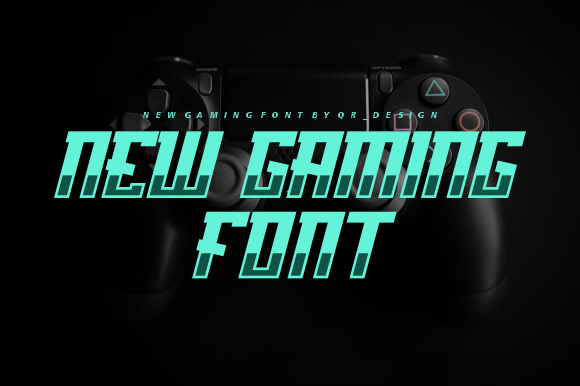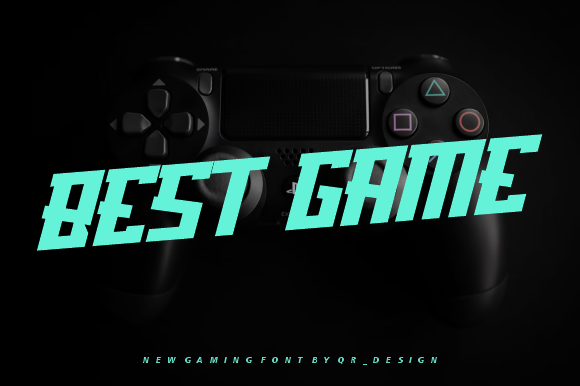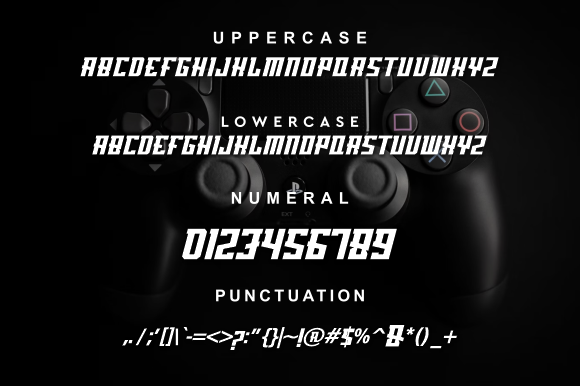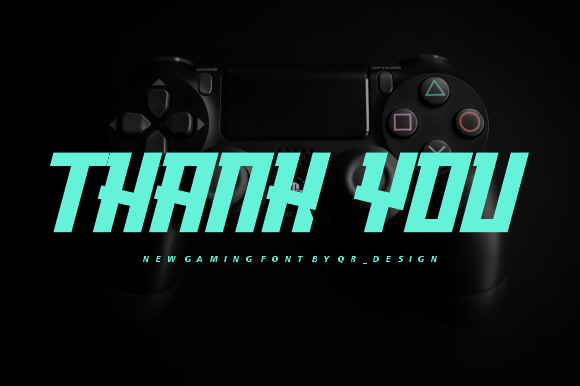
Introduction to Hard Guardian Font
Have you ever found yourself stuck in the middle of a creative project, desperate for the perfect font to bring your vision to life? I’m sure many designers can relate to that feeling. One moment, everything is going smoothly, and the next, you’re scouring the internet for the perfect design resource. That’s where the Hard Guardian Font comes in – a high-quality, bold display font that’s sure to elevate any project.
With its authentic, modern style, the Hard Guardian Font is a game-changer for designers. Whether you’re working on a logo, t-shirt design, or even a video game, this font is an outstanding choice. And the best part? It’s available for free download, making it an accessible design resource for creatives of all levels.
Key Features of Hard Guardian Font
- High-quality font design ideal for creative projects, offering a unique and bold style.
- Transparent background, allowing for seamless integration with any design element or background.
- Features a clean and modern design, making it suitable for a wide range of creative projects, from logos to typography.
- Designed to be highly legible, even at small font sizes, ensuring readability in various applications.
Honest Review: Hard Guardian Font
As a designer, I’m always on the lookout for high-quality design resources that can elevate my creative projects. The Hard Guardian Font is one such resource that I’ve had the chance to try out, and I must say, it’s been a game-changer for me.
What works well with the Hard Guardian Font is its versatility. It’s perfect for creating bold and edgy designs, and the transparent background option allows for seamless integration with any design element. ✨ I love how it adds a touch of sophistication to my projects.
However, I did encounter some limitations with the Hard Guardian Font. ⚠️ The font may not be suitable for all types of designs, particularly those that require a more subtle or elegant look. Additionally, some users may find the font too bold or overpowering.
Overall, I’m really impressed with the Hard Guardian Font. It’s a fantastic design resource that’s perfect for creative projects that require a bold and edgy look. If you’re looking for a high-quality font that’s easy to use and customize, I highly recommend giving the Hard Guardian Font a try.
Tips for Getting the Most Out of the Hard Guardian Font
To get the most out of the Hard Guardian Font, try using it in combination with other design elements to create a unique and eye-catching design.
Use the transparent background to create a sense of depth and dimension in your design.
The Hard Guardian Font is perfect for a variety of creative projects, including:
Graphic design
Logo design
Marketing materials
Web design
What is the recommended usage for the Hard Guardian Font?
The Hard Guardian Font is a versatile design resource that can be used in a variety of creative projects. It’s particularly well-suited for use in headings, titles, and other display typography. You can use it in conjunction with other fonts to create a unique and high-quality design aesthetic.